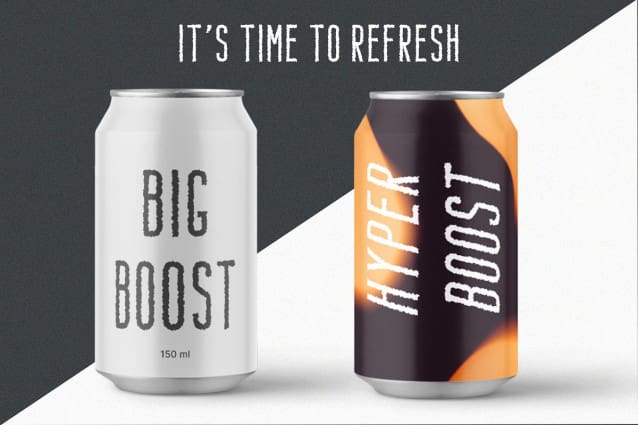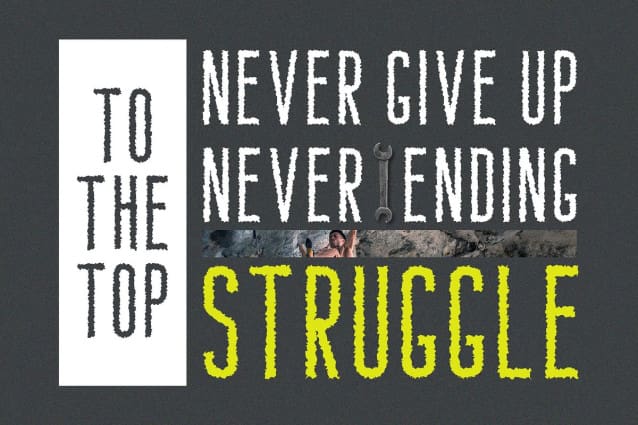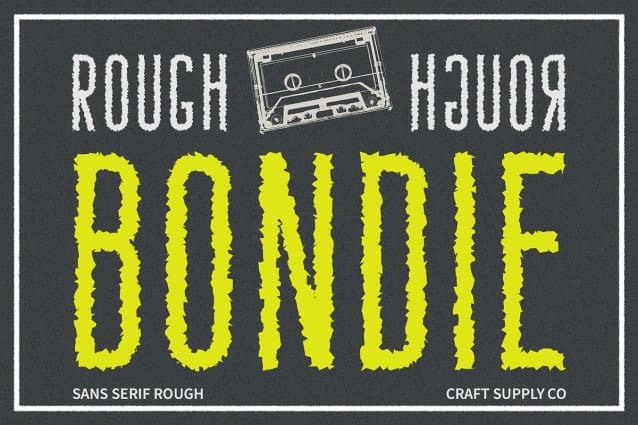
Bondie Rough Font
Bondie Rough Font a condensed sans serif design that exudes modernity and sophistication. Its sleek and streamlined appearance adds a contemporary edge to any project.
Vintage Aesthetics with Rough Texture Infused with vintage charm, This font features rough texture effects that evoke a sense of nostalgia and authenticity. Each character carries a weathered look, reminiscent of old-school print materials.
Perfect for Display Purposes Tailored for display purposes, This font shines in various applications, from headlines to posters. Its condensed form allows for maximum impact, ensuring your message gets noticed.
Versatility in Design Despite its vintage-inspired rough texture, This font offers versatility in design. Whether used in branding, packaging, or editorial layouts, it adds character and flair to any project.
Timeless Elegance with a Vintage Twist This font combines the sleekness of a condensed sans serif with the vintage charm of rough texture effects, resulting in a font that is both contemporary and nostalgic. Elevate your designs with Bondie Rough and infuse them with timeless elegance and vintage allure.